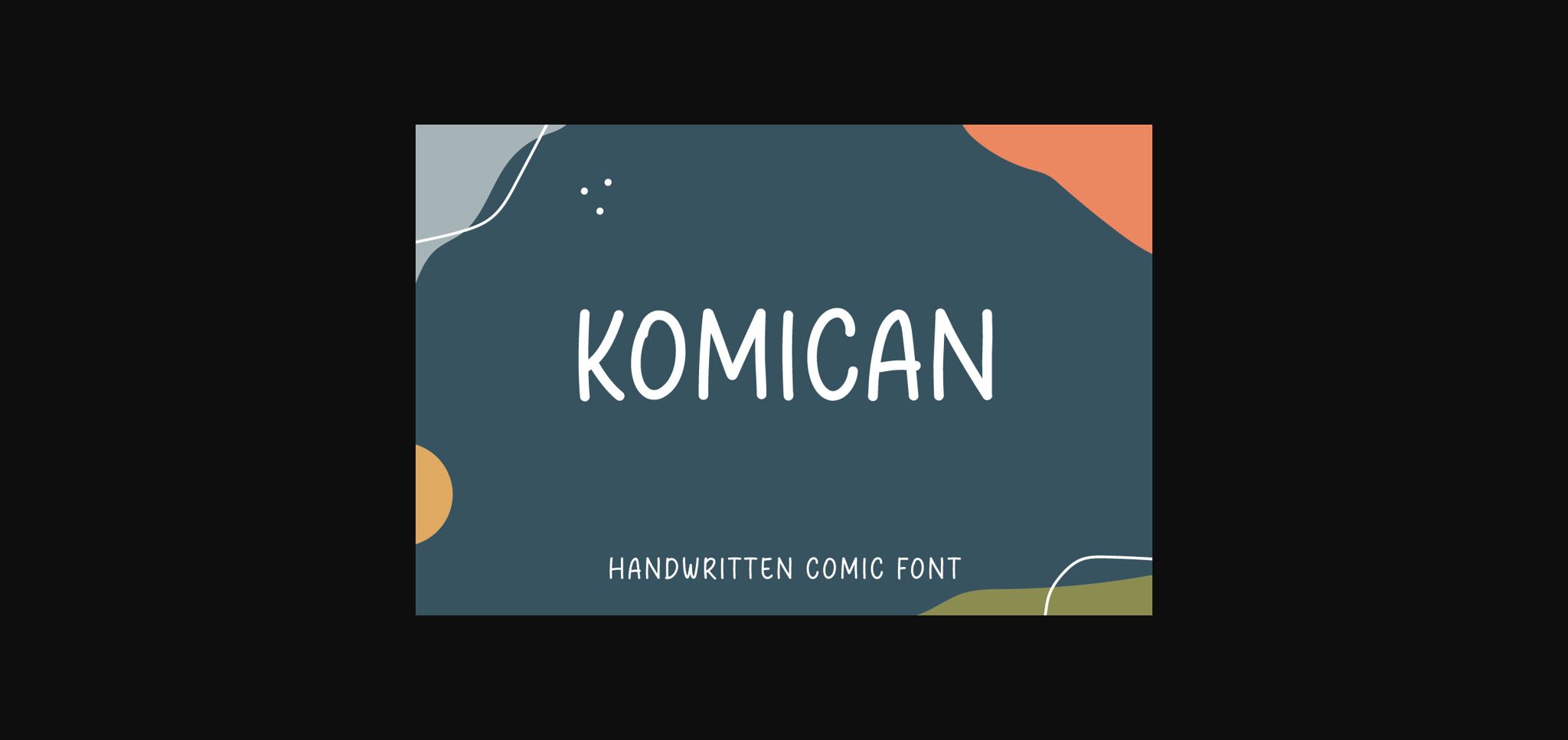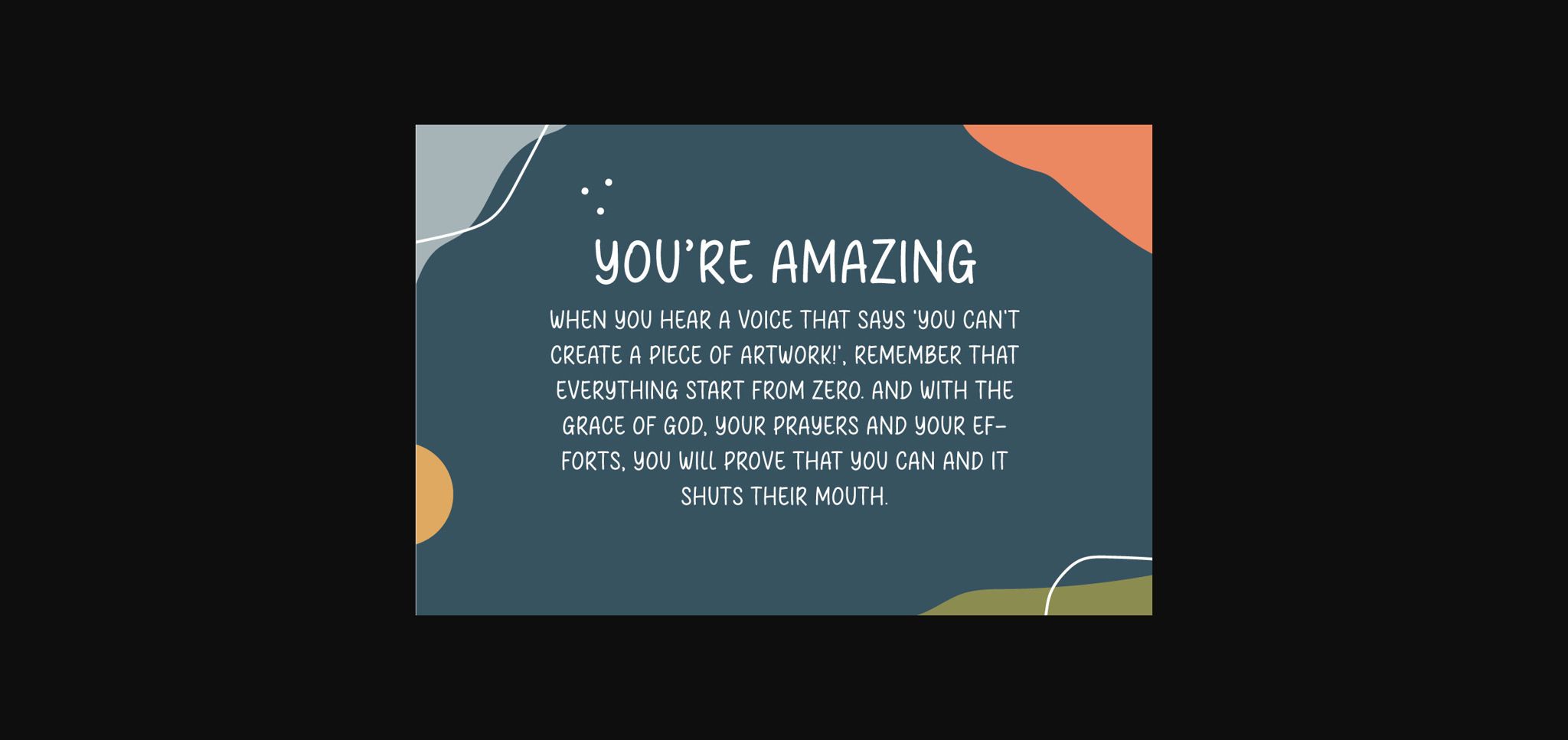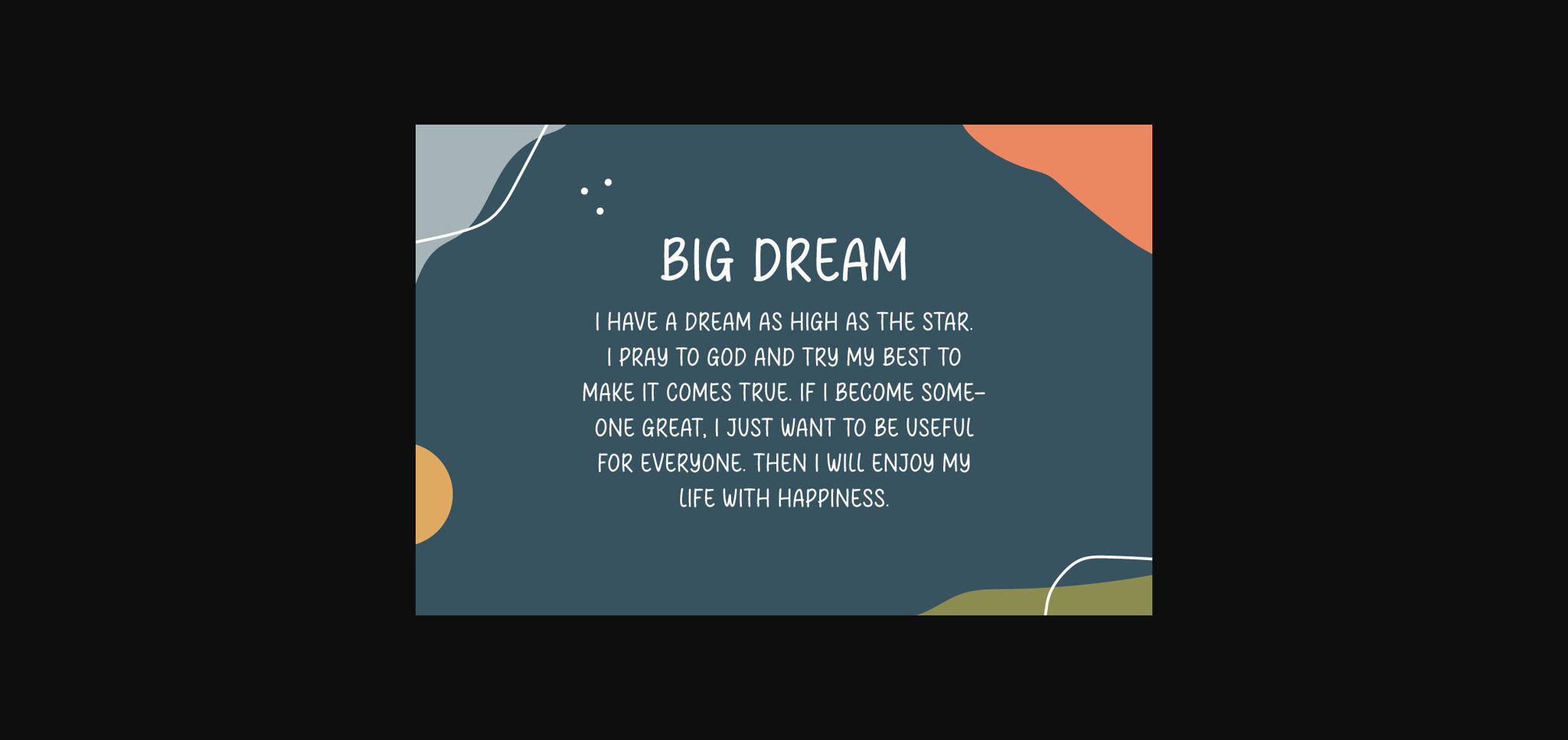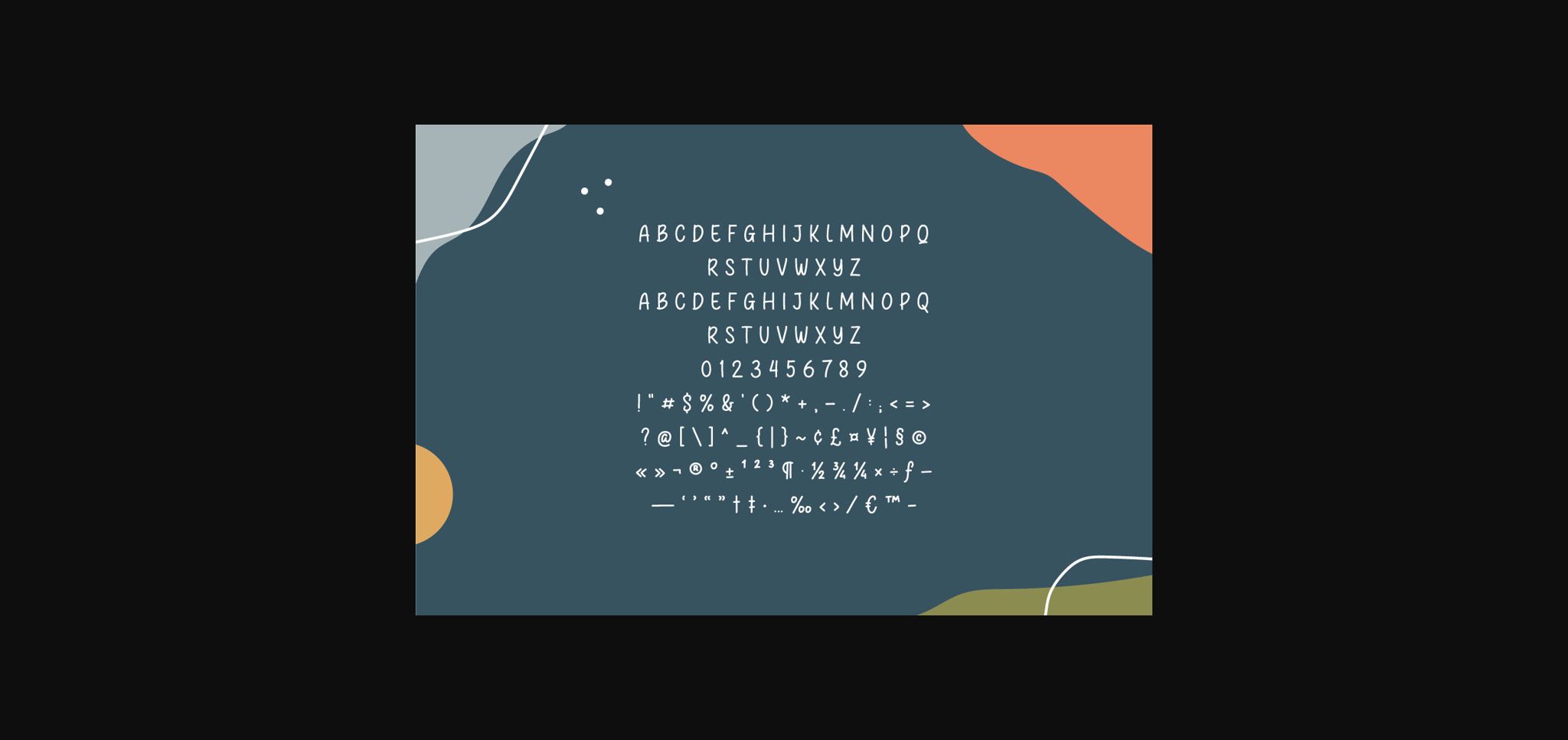
About Komican Font
**Komican** is a handwritten comic font.
Komican can be used in any work such as comic books, posters, school, flyers, book titles, advertisements, social media content, logos, and many more.